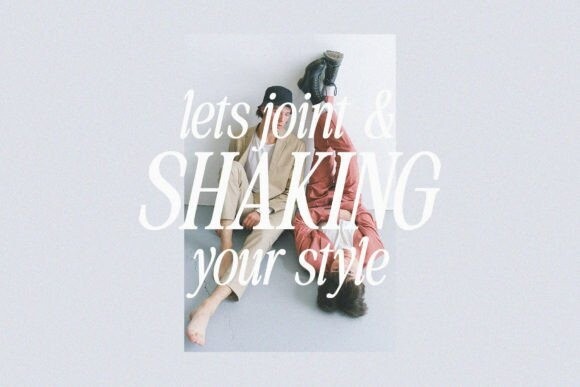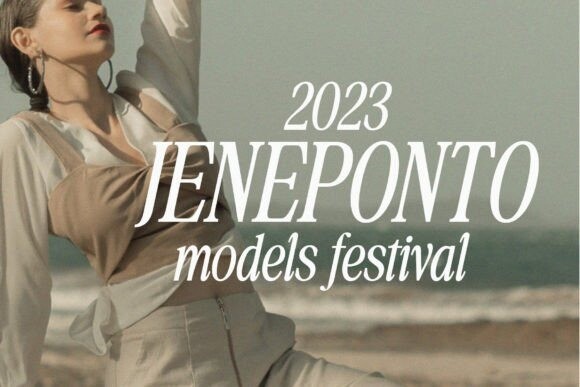
Greatdesk Font
This typeface has a classic and elegant style with variations in clean italic fonts. This typeface is very compatible with use in various media, both digital and print media